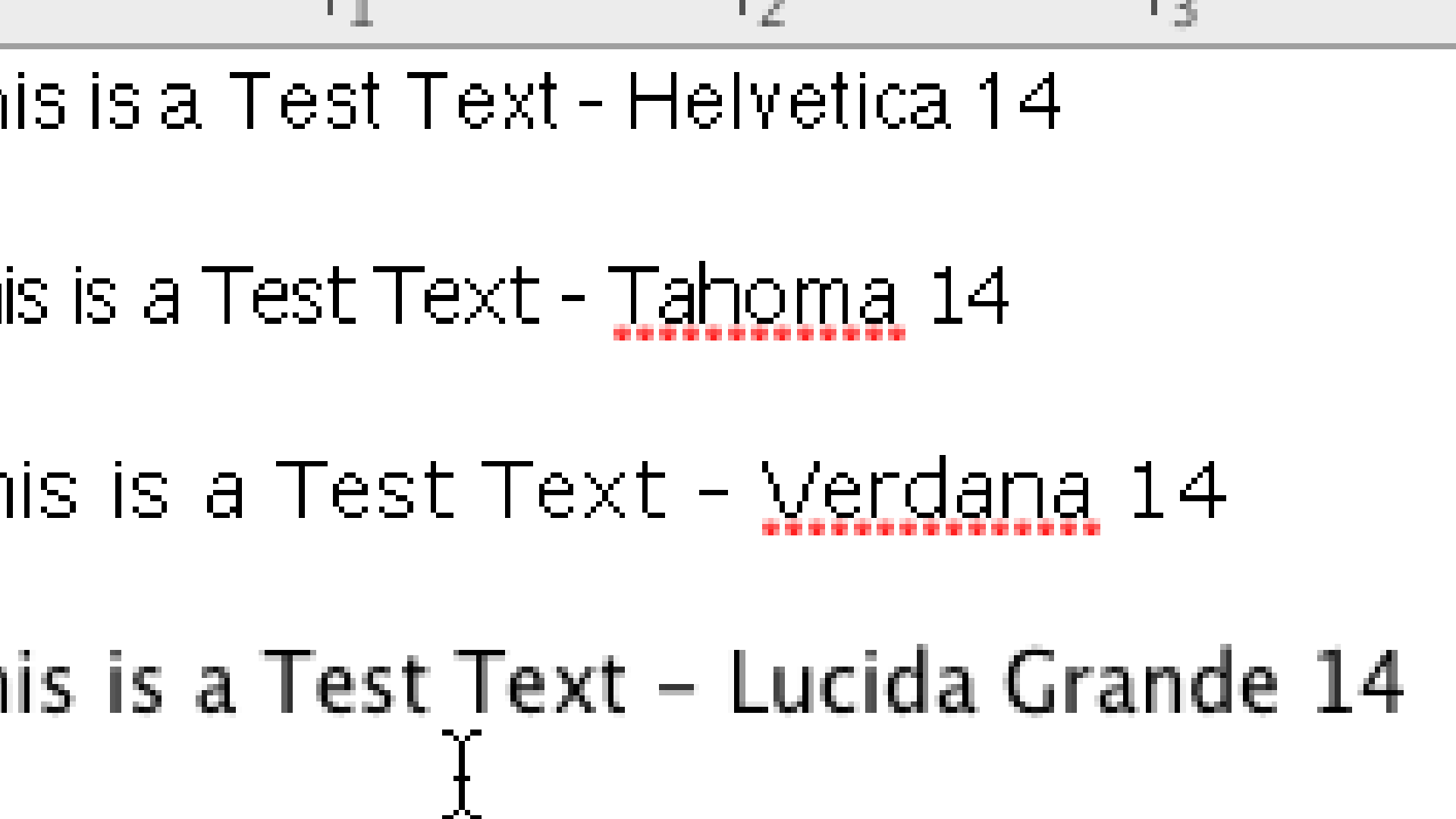
I just upgraded my imac to intel i5 version 2.5Mhz.
Before i had a version from 6 months ago with i3 processor 3.0Mhz.
First thing that i noticed that fonts dont look clear.
They are kind of gray,sort of like there would be some problem with convergence.
I never felt this with older mac i3 which had ati card and this one has AMD card.
So far i was able to figure out that you can set 4 types of the
smoothing:none;light;medium;strong
they all can be set with below commands or tinkertool (before it could be done in preferences)
it looks like above setting are used to choose the the type of the subpixel
rendering (Quartz) and if you use it together with option:
"Turn off the font smooting for sizes smaller then ..."
any font that has fonth smoothing enabled (not the font below minimum value above)
will use smoothing settings set with above commands or tinkertool.
The only exception is lucida grande that is not affected by any
settings.(it is supposed to be by design - see zoomed.png)
Unfortunately, my eyes have different sensivity and the subpixel rendering (called Quartz on MAC) does not work for me. Interesting part is that all was good until I changed the Mac to the one with AMD card.
Before I never complained.
I understand that Mac is trying to make fonts look like on print, but they dont look like that. They look blurry and my eyes get tired quickly.
I guess all you here, have different eyes and see it super sharp.
I dont. For me I see it like there would be a convergence problem with the display. Those who ever calibrated the tv know what effect i am talking about. Next step is go to the eye doctor and check my eyes.
I started to read a lot about the history of the fonts and different methods to make them smooth and I found this nice artice about windows:
anyone knows about similar information but for mac?
I use my mac for processing the raw photograms, but I hate the font rendering. I was able to move to Tahoma font and disable smoothing, but it does not work everywhere (Lucida grande) and it also does not look as good as microsoft true type fonts with bi-level font rendering.
What is your experience?
Did you notice a change recently? (last two or 3 updates)
I cannot believe that everyone here likes the mac fonts rendering.
Looks like you all (no offense) like that blurry look.
My eyes cannot get use to it.
It is so NO SHARP!!!
Weird because my mine is as sharp as a Swiss army knife.
Hope you get this resolved by some update or preference snooping!